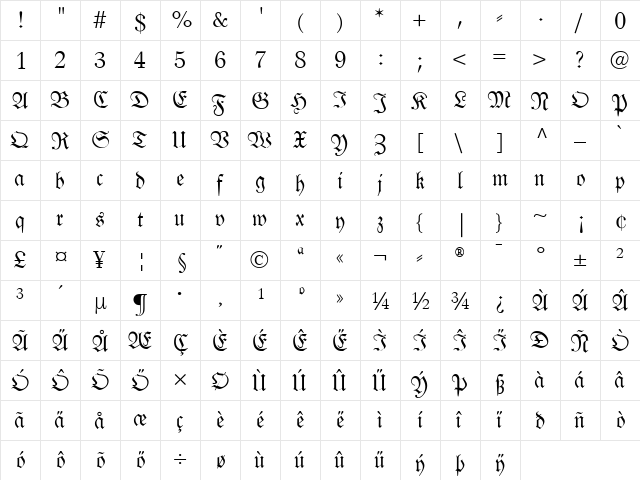
LTLutherscheFraktur Regular
Design Context for LTLutherscheFraktur Typeface
LTLutherscheFraktur draws on the rich tradition of blackletter calligraphy, with dense, angular strokes that evoke medieval manuscripts and old-world craftsmanship.
A natural fit for music packaging, gothic editorial design, and any project that needs historical weight.
Font Pairing: Pair with a clean neutral sans-serif for body copy to let LTLutherscheFraktur's character lead without overwhelming the composition.
Pro Tip: Reserve LTLutherscheFraktur for display and logo use — pair it with a clean sans-serif for body copy to prevent the composition from feeling oppressive.